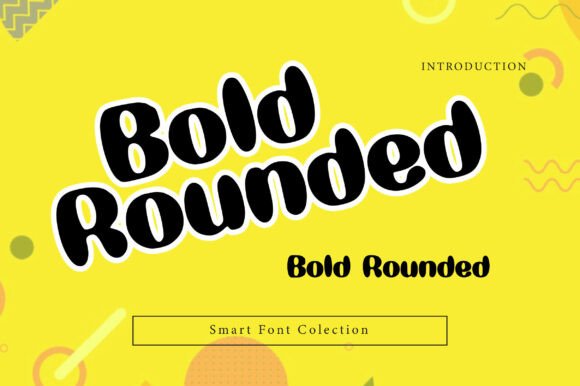
The Power of Playfulness: Unlocking the Potential of Bold Rounded Font
I still remember the time I was working on a project for a children’s toy brand, struggling to find the perfect font that would convey a sense of fun and friendliness. The client wanted a typeface that would appeal to kids and parents alike, but I was stuck. That’s when I stumbled upon the Bold Rounded font, and it was like a breath of fresh air. The soft curves, the pillowy stems, and the perfectly circular terminals – it was exactly what I needed to bring the brand to life.
A Personal Review: What I Love (and What to Watch Out For)
• ✅ The Bold Rounded font is incredibly versatile, making it perfect for a wide range of design projects, from children’s products to snack packaging and mobile app interfaces.
• ✅ The font’s soft curves and rounded edges create a warm and inviting feel that’s hard to resist.
• ✅ It’s surprisingly legible, even at smaller sizes, making it perfect for body text and captions.
• ✅ The font’s playful nature makes it an excellent choice for brands that want to appear youthful and fun.
A Few Quirks to Keep in Mind 🤔
• ⚠️ The font can be a bit too playful for very formal or corporate designs – use it judiciously!
• ⚠️ Some of the letters, like the lowercase “f” and “j”, can be a bit tricky to read at very small sizes.
The Story Behind Bold Rounded Font
The Bold Rounded font was designed with one goal in mind: to create a typeface that would bring a sense of warmth and friendliness to any design. The designer, inspired by the playful curves of children’s toys and packaging, set out to create a font that would be both fun and functional. The result is a font that’s perfect for brands that want to appear youthful and approachable.
Font Name Bold Rounded Font
Author Wow Magic
Q: What makes Bold Rounded font so special? A: The font’s unique combination of soft curves and rounded edges creates a warm and inviting feel that’s hard to resist.
Q: Is Bold Rounded font suitable for body text? A: Yes, the font is surprisingly legible, even at smaller sizes, making it perfect for body text and captions.
Q: Can I use Bold Rounded font for logos and branding? A: Absolutely! The font’s playful nature and strong presence make it an excellent choice for logos and stickers.
Q: What are some popular design trends that Bold Rounded font is well-suited for? A: The font is perfect for trendy, Gen-Z aesthetic designs, especially when paired with vibrant, high-contrast color palettes and funky geometric patterns.